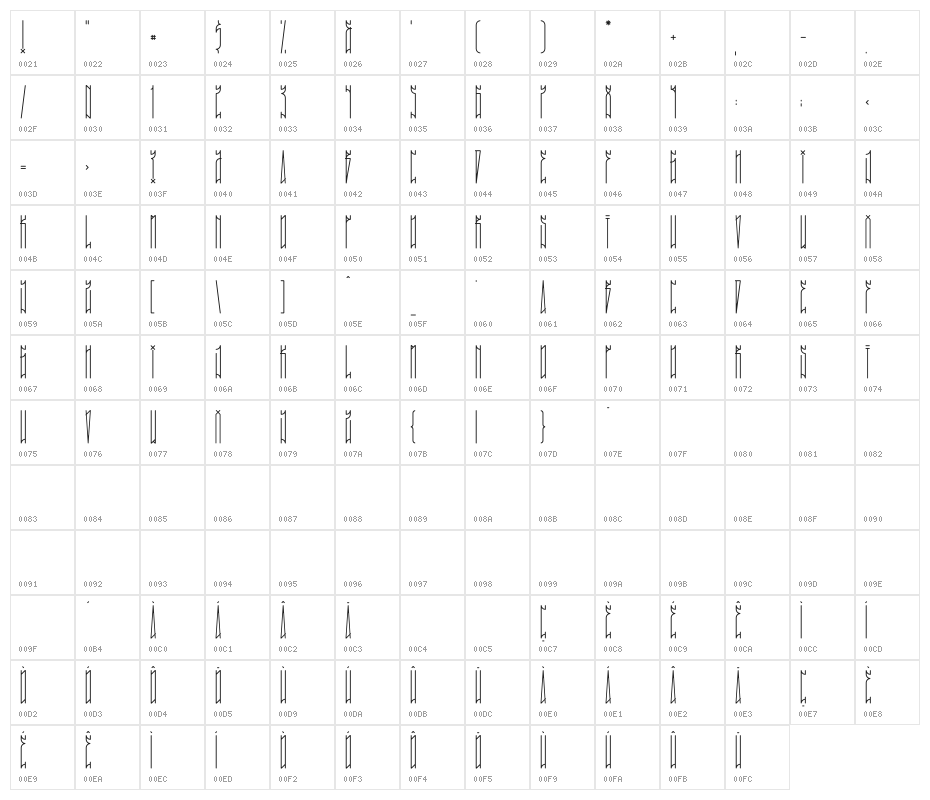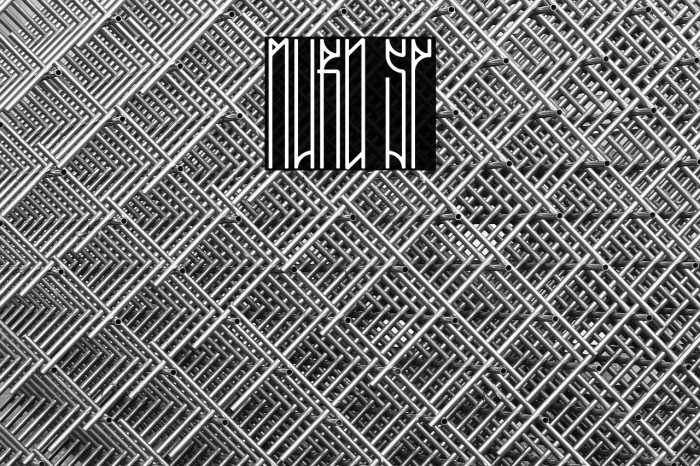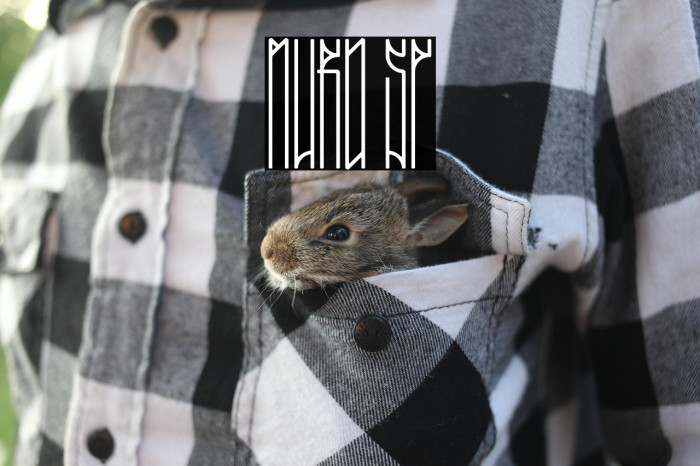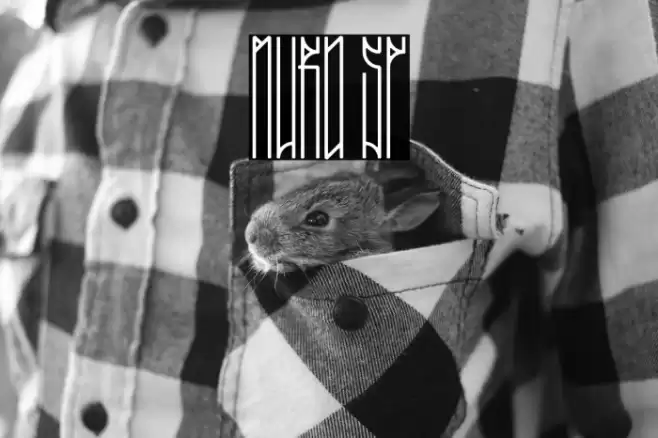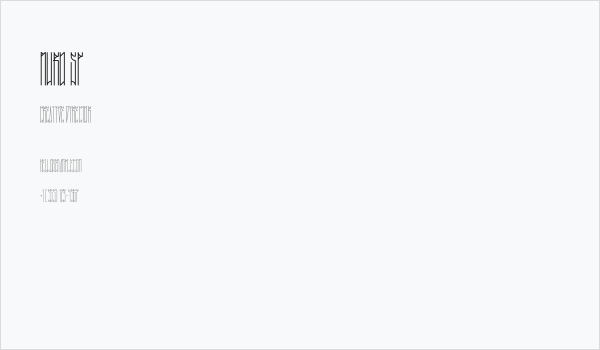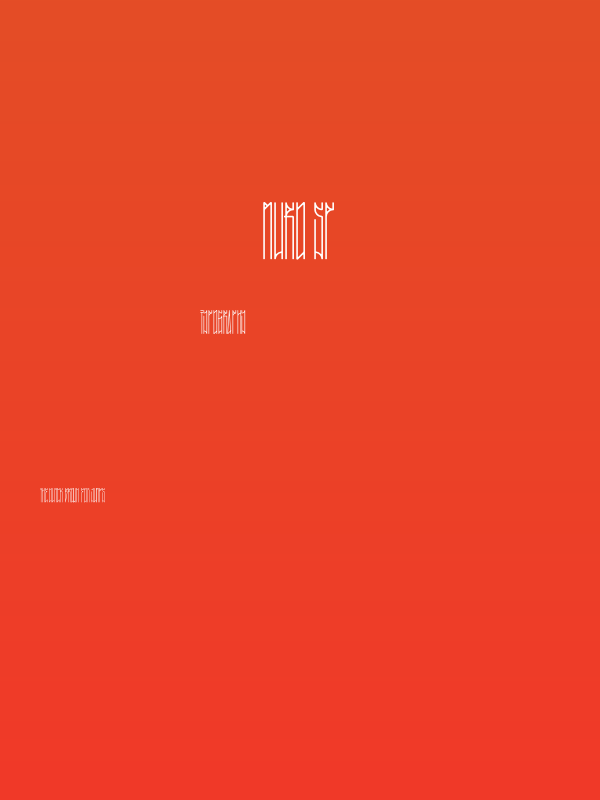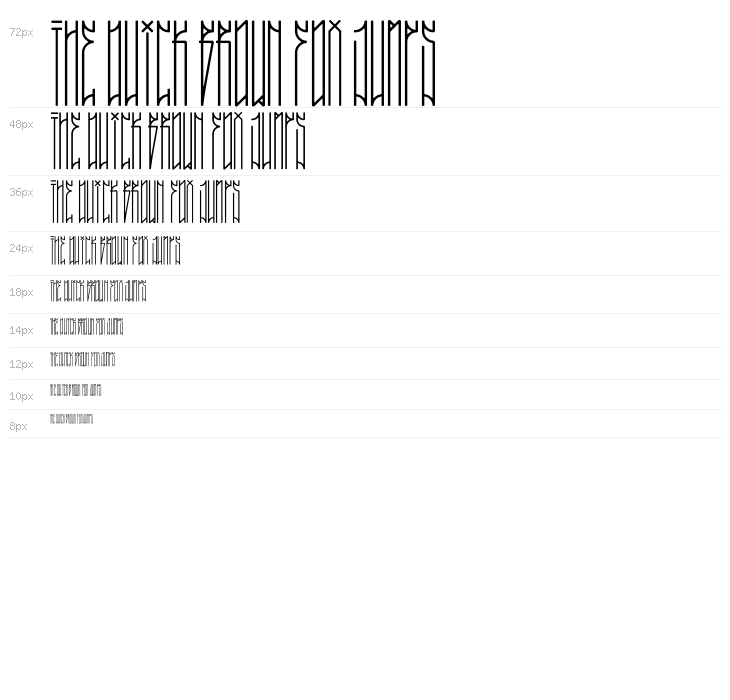
MURO SP Font
MURO SP Description
This font features a highly condensed and geometric design, characterized by its tall, narrow letterforms and sharp angles. The vertical strokes are prominent, giving it a structured and architectural appearance. The uniformity in stroke width across characters contributes to a cohesive and modern aesthetic. The font's unique style is further emphasized by its minimal contrast and consistent line thickness, making it suitable for creating a striking visual impact. The special characters and numerals maintain the same design principles, ensuring a harmonious look throughout.
| Proposed Projects | Ideal for modern branding, architectural designs, posters, and digital media where a bold statement is needed. |